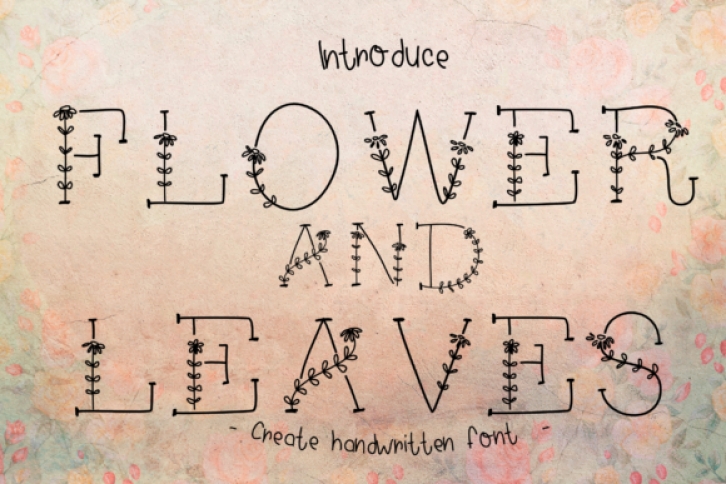
Flower and Leaves is a delicate and beautiful decorative font, featuring leaf ornaments. Fall in love with its incredibly versatile style and use it to create gorgeous wedding invitations, beautiful stationary art, eye-catching social media posts, and much more!